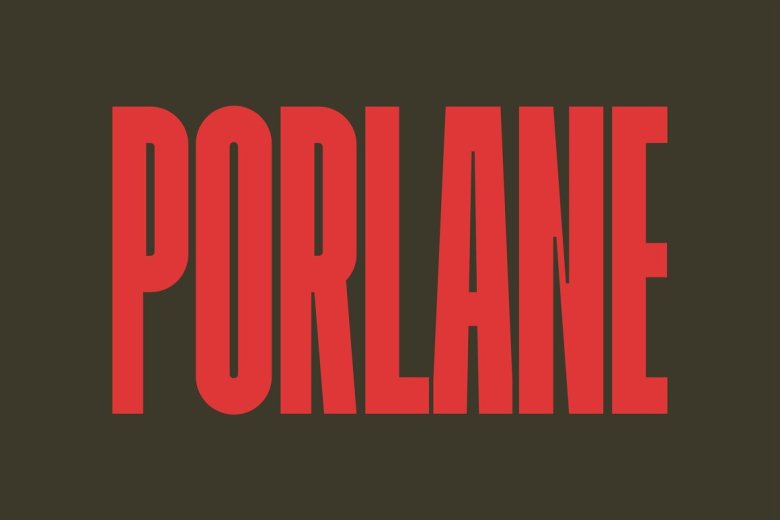
Porlane Font
Porlane TM is a condensed sans serif typeface created for bold titles and distinctive shapes, created as a display font to make reading easier. It comes with one weight for expressive, legible shapes. Furthermore, its glyph catalogue provides an easy composition system for Latin with high x heights and tight line spacings.
Porlane Sans Serif Font Family